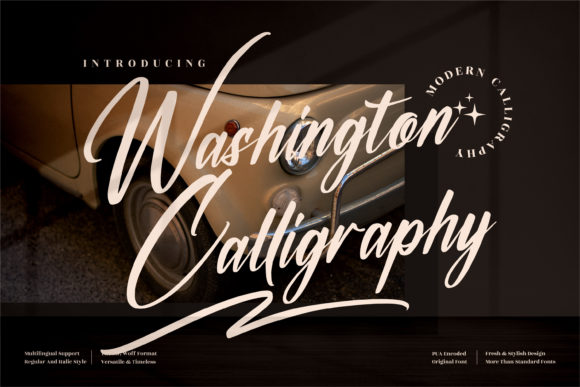
Unleash the Enchantment of Washington Calligraphy: A Font that Captivates Hearts and Ignites Creativity
In the vast realm of digital artistry, fonts hold an undeniable power to transform words into captivating expressions of emotion and imagination. Among this symphony of letterforms, Washington Calligraphy emerges as a true maestro, a script font of unparalleled elegance and versatility. Let your creative spirit soar as you delve into the enchanting world of Washington Calligraphy, where every stroke of your pen becomes a brushstroke of pure magic.
With its graceful curves and sweeping flourishes, Washington Calligraphy possesses an inherent charm that instantly captures the eye. Each character dances across the digital canvas with a fluidity that mimics the strokes of a master calligrapher, evoking a sense of timeless beauty and sophistication. Whether you're crafting stunning designs for social media, creating heartfelt invitations, or adding a touch of elegance to your personal projects, Washington Calligraphy is the perfect companion for your creative journey.
Beyond its aesthetic allure, Washington Calligraphy is a font of exceptional versatility. Its meticulously crafted glyphs and swashes provide endless possibilities for customization, allowing you to tailor your creations to any project or mood. Whether you seek to create eye-catching headlines, captivating logos, or simply add a touch of personal flair to your written words, Washington Calligraphy adapts seamlessly to your vision.
Immerse yourself in the world of Washington Calligraphy and discover the endless possibilities it holds. This font is your gateway to a world of creativity, where imagination knows no bounds. Let your artistic soul flourish as you explore the depths of its elegance, versatility, and charm. Washington Calligraphy is more than just a font; it's a creative catalyst, an enabler of dreams, and a testament to the power of beautiful typography.